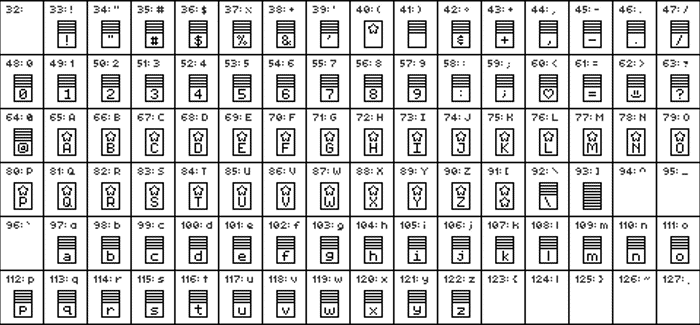
Pixelstars & Stripes Regular Font
A fun, holiday-themed bitmap font to replicate the USA flag. However, it is general enough to be used for other things. Use as-is or colored in your favorite graphics program. Set includes all letters and most (but not all) symbols. Also includes several bonus fun symbols. Zip includes font, readme, preview image, and character map image. Have fun!